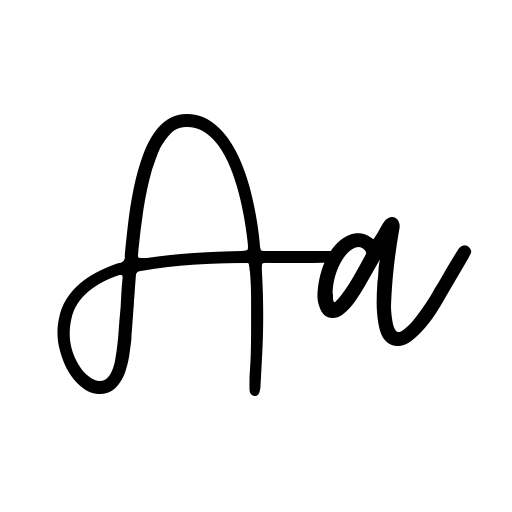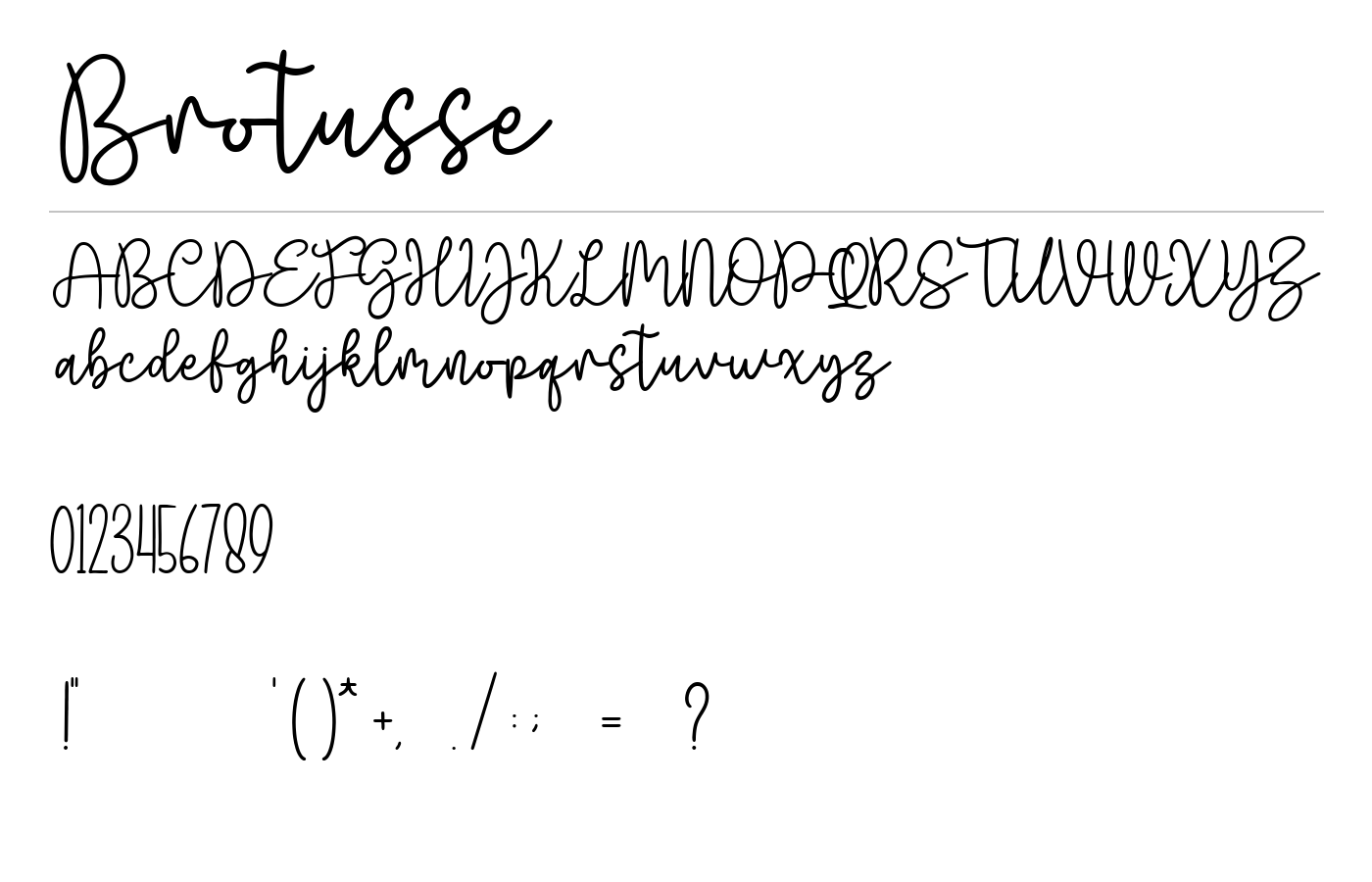
Brotusse is a playful and elegant handwritten script font with a light weight and narrow width, featuring fluid, connected letterforms that convey a casual yet refined style. Its tall, narrow characters and smooth, consistent strokes make it perfect for creative branding, invitations, and social media designs where a personal, friendly touch is desired. This font works well in both display and short text uses, adding charm and warmth to any project.
Brotusse Font
About Brotusse Font
| Font family | Brotusse Font |
| Designer | Anggi Hermawan |